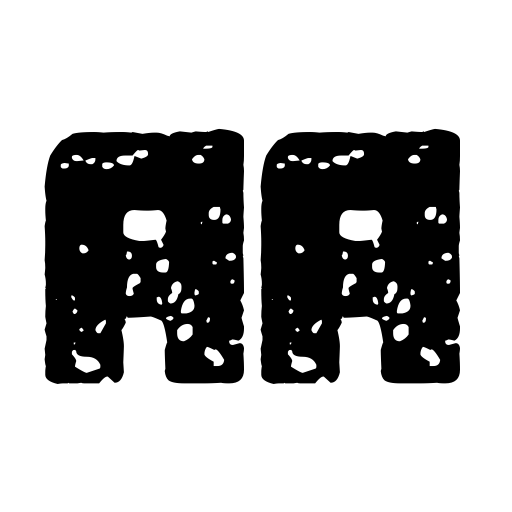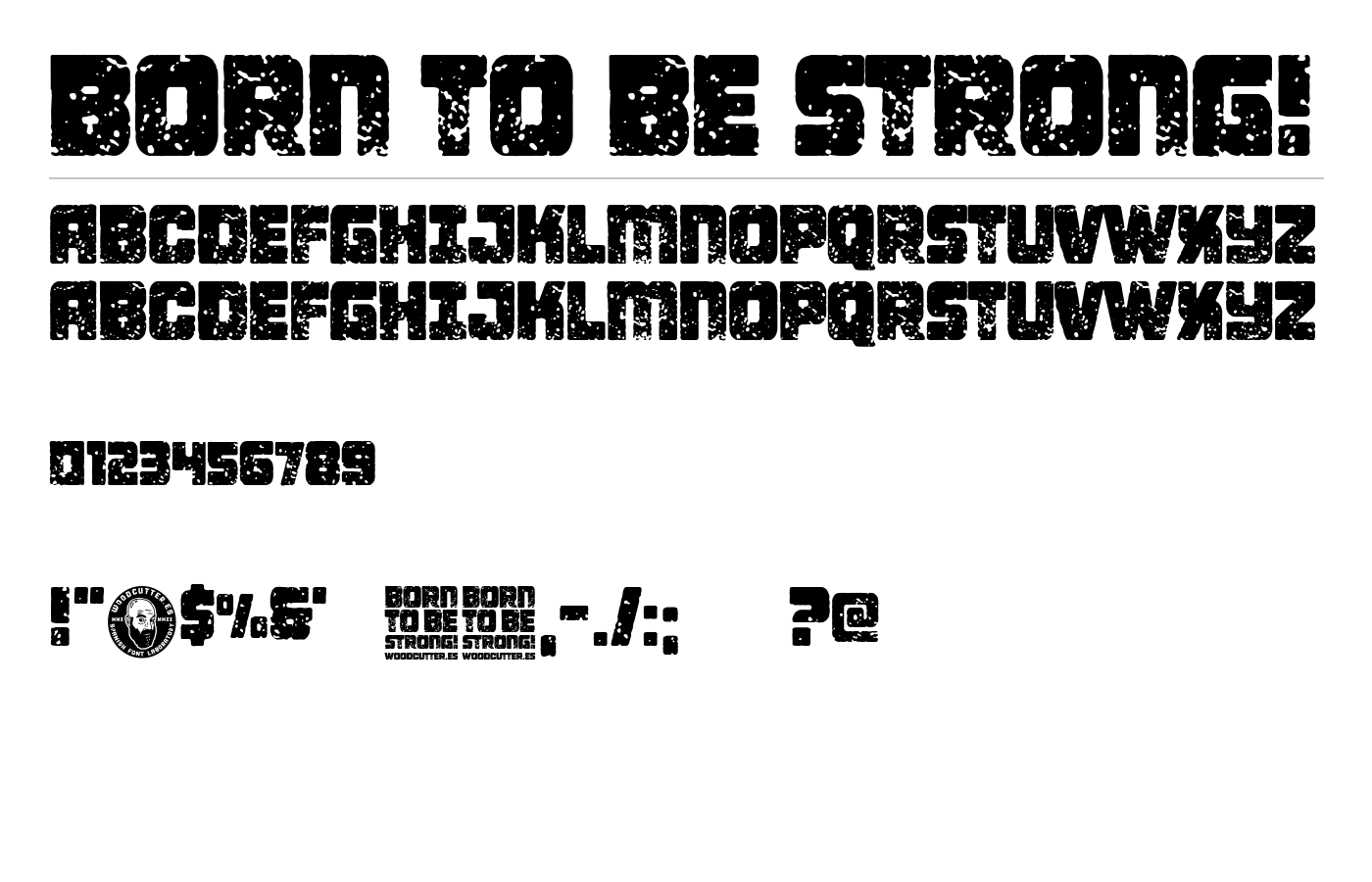
Born To be Strong! is a bold, condensed sans serif font with a rugged, distressed texture that gives it a tough and gritty character. Its sturdy block-like letterforms and heavy weight convey strength and resilience, making it ideal for eye-catching headlines, posters, or branding that aims to evoke a powerful, industrial, or rebellious vibe. This font works best in designs seeking a bold statement with a raw, urban edge.
Born To be Strong! Font
About Born To be Strong! Font